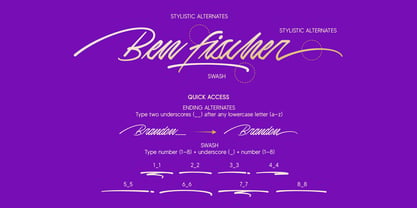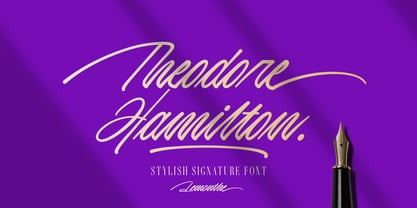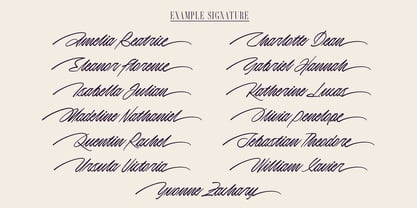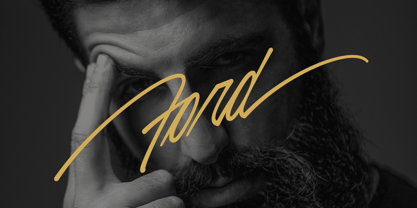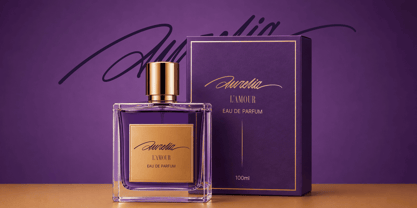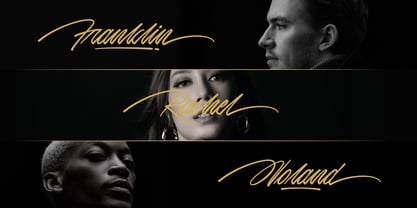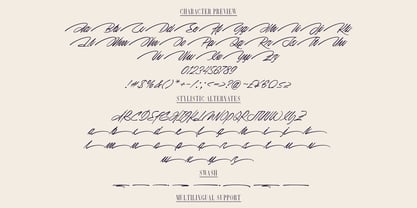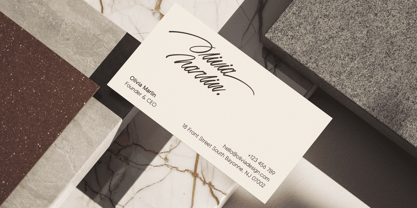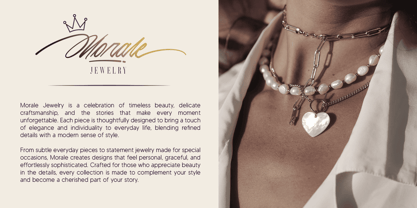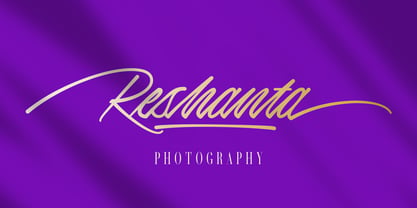
Theodore Hamilton
La familia tipográfica Theodore Hamilton fue diseñada por Dwi Ahidian y publicada por Lemonthe. Theodore Hamilton contiene 1 estilos. Más información sobre esta familia
Theodore Hamilton is an elegant and expressive signature font designed to bring a sophisticated handwritten touch to your creative projects. Its flowing strokes, graceful curves, and distinctive character make it perfect for creating stylish and memorable typography. Ideal for logos, branding, fashion, beauty products, wedding invitations, stationery, packaging, social media, photography, and other luxury-inspired designs. With beautifully crafted swash and stylistic alternates, Theodore Hamilton gives you the flexibility to create unique and personalized lettering with a refined signature aesthetic.
Ending Alternates: Type two underscores (__) after any lowercase letter (a–z)
Example: a__
Swash: Type number (1–8) + underscore (_) + number (1–8)
Example: 1_1, 2_2, 3_3, 4_4, 5_5, 6_6, 7_7, 8_8